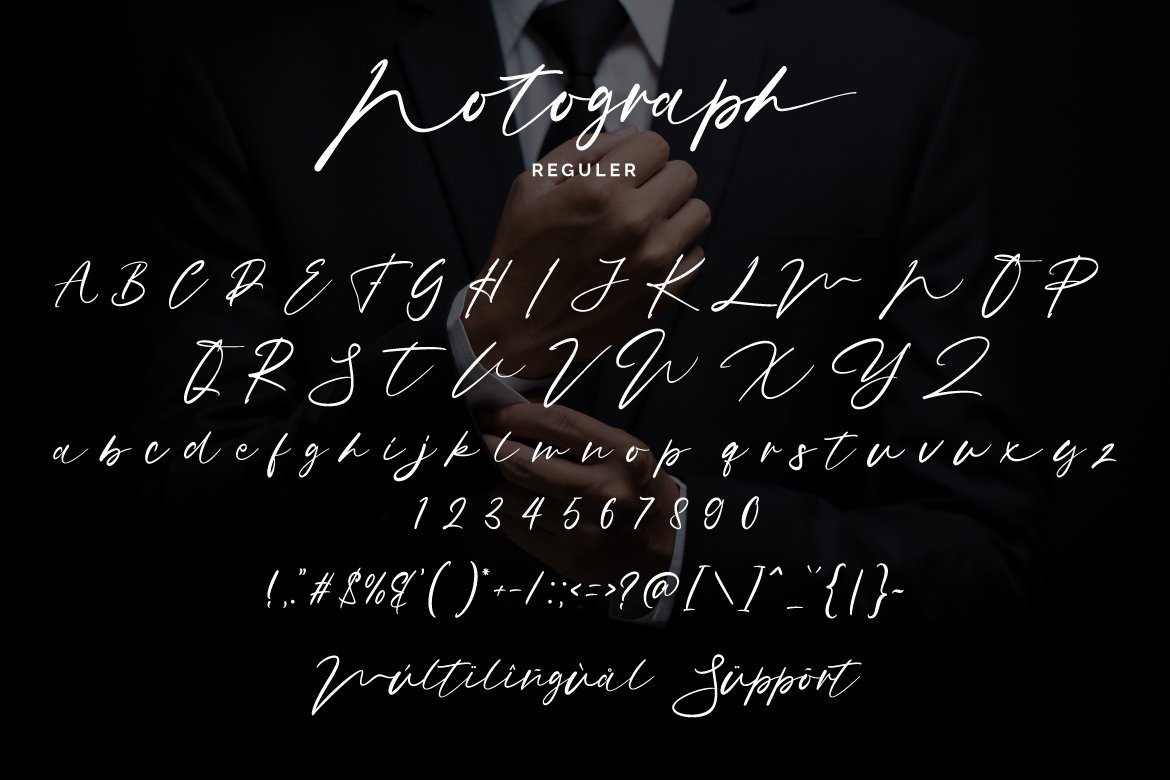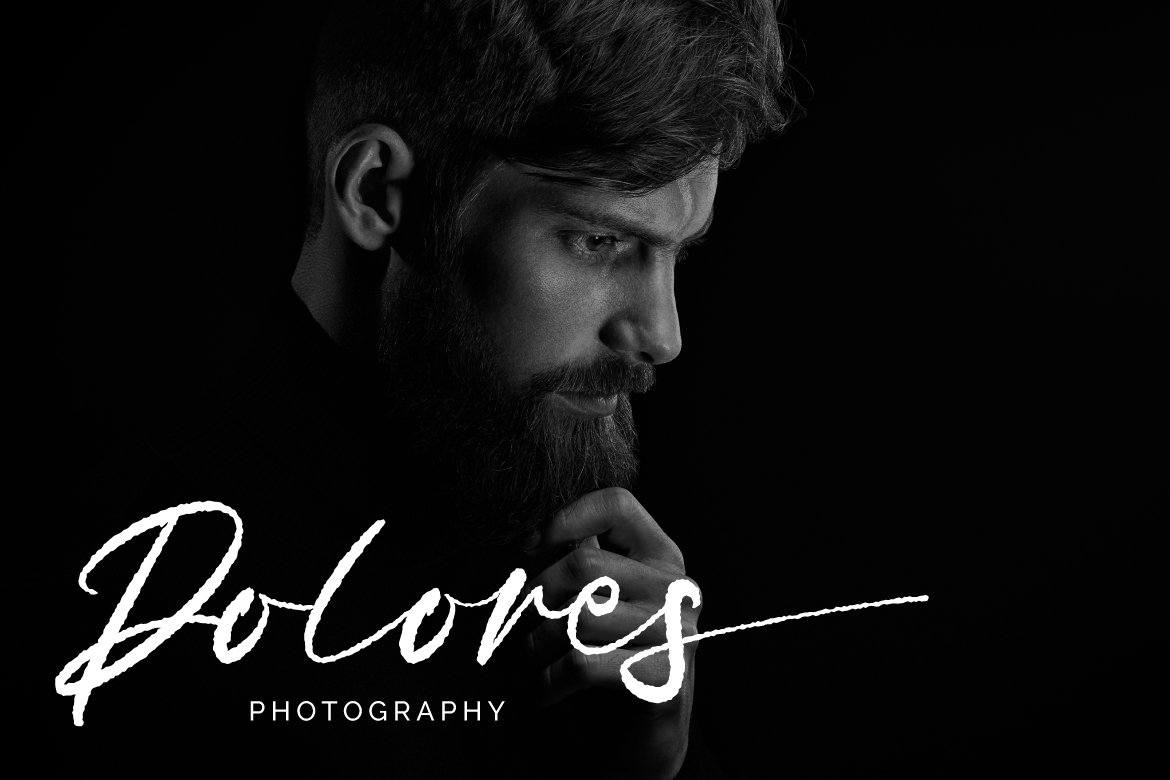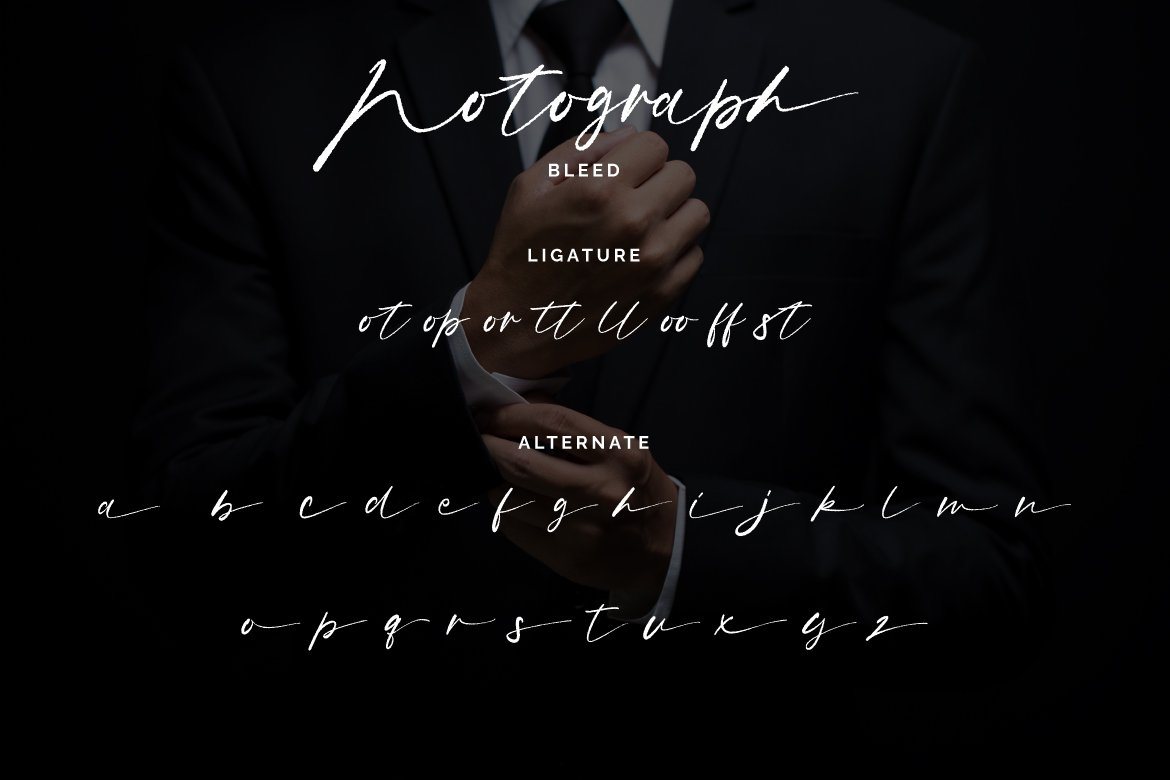
About Notograph
Notograph Signature is perfect for many different projects such as logos & branding, invitation, stationery, wedding designs, social media posts, advertisements, product packaging, product designs, label, photography, watermark, special events, or anything. what’s inside : Notograph otf,ttf,woff Accents (Multilingual Characters) PUA encoded Numerals and Punctuations (OpenType Standard) Many of alternates ligature